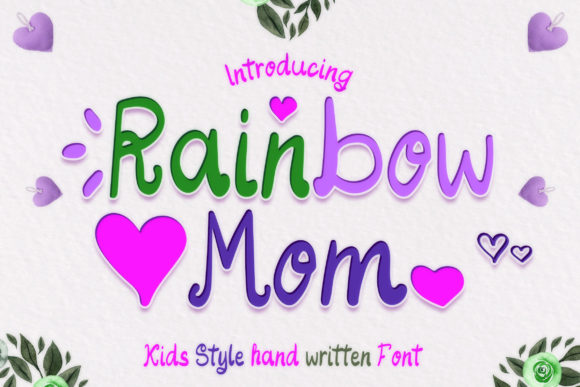
Introducing Rainbow Mom Font - A Journey Through Delightful Handwritten Elegance
In a world where digital expressions reign supreme, let Rainbow Mom Font be your creative companion. A joyful symphony of handwritten charm, Rainbow Mom captivates with its innate friendliness and playful doodle elements. Its sweet, versatile style is an ode to youthful exuberance, inviting you to craft designs that resonate with the innocence and wonder of childhood.
Step into a realm of limitless possibilities with Rainbow Mom. Its enchanting aura is perfectly suited for educational projects, bringing textbooks, presentations, and worksheets to life. Unleash your creativity and design cheerful invitations, personalized greeting cards, and eye-catching social media posts that radiate warmth and joy.
With Rainbow Mom by your side, transform ordinary designs into extraordinary expressions. Its versatility knows no bounds, effortlessly complementing fashion websites, lifestyle blogs, and whimsical branding projects. Let your imagination soar as you create designs that exude a sense of playfulness and carefree spirit.